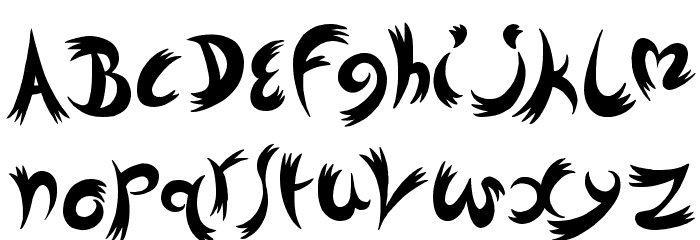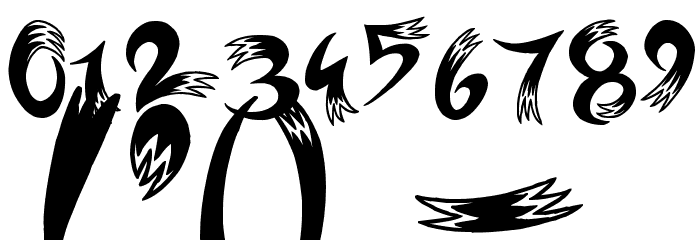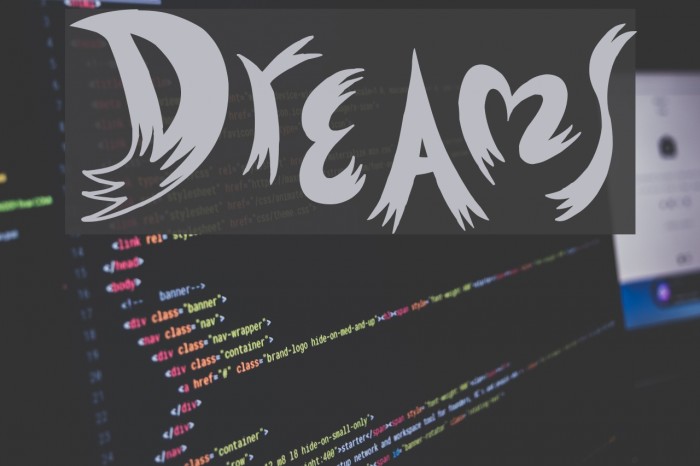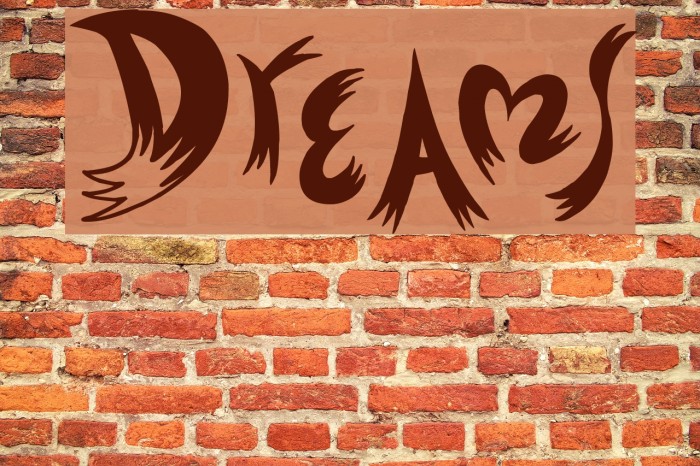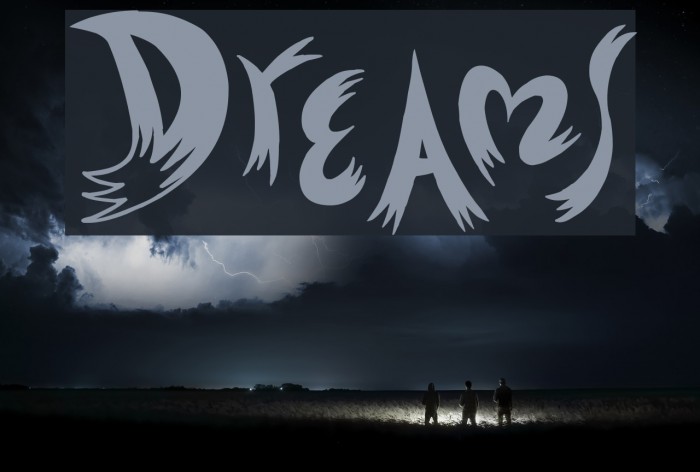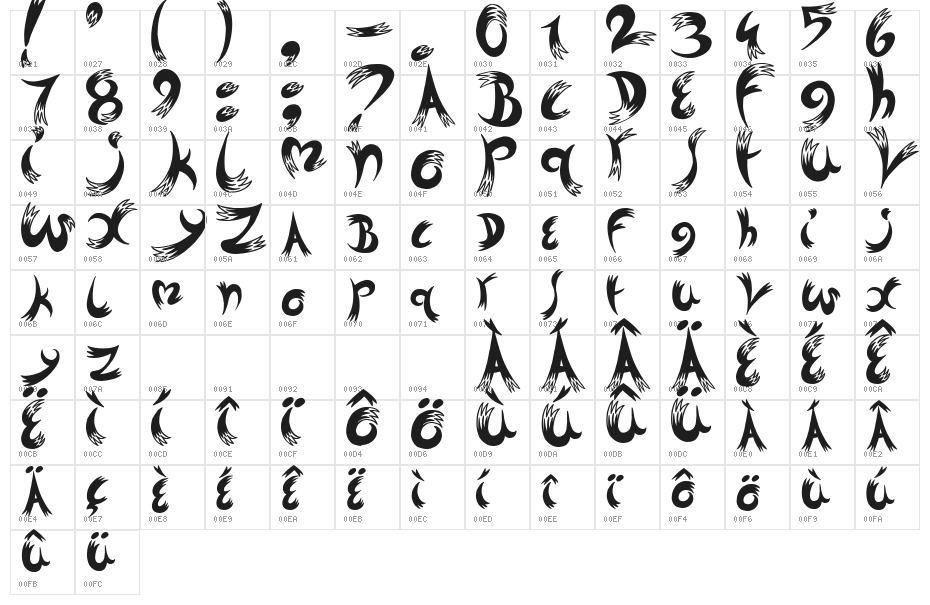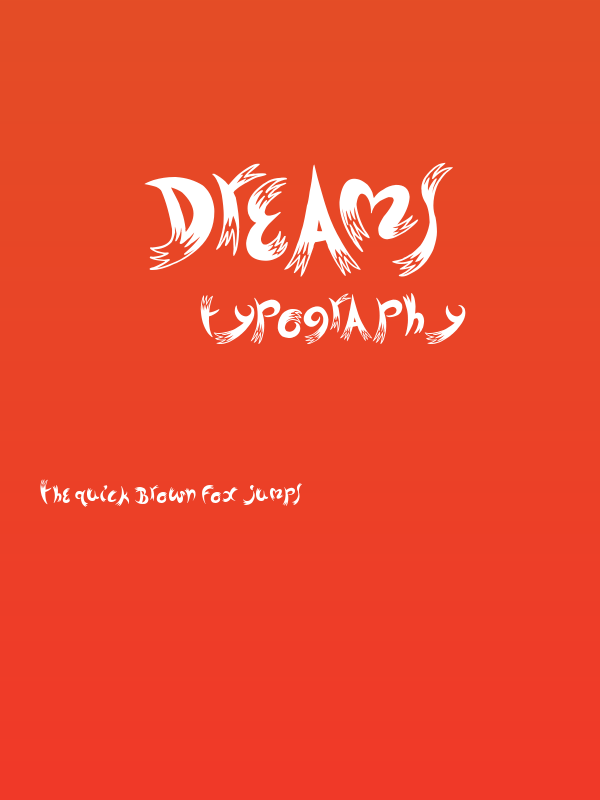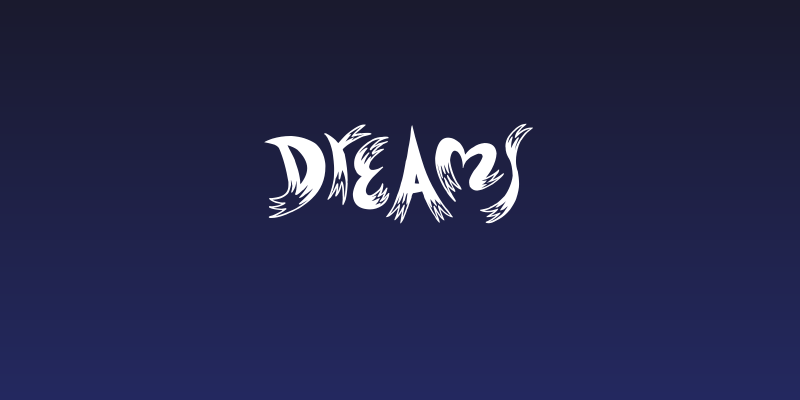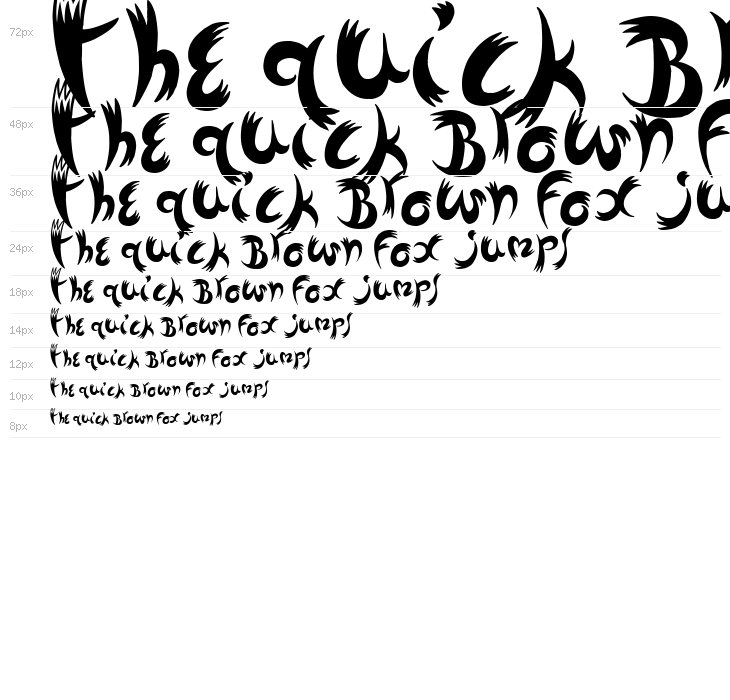
Dreams Font
This font features a dynamic and energetic style, characterized by its bold, sweeping strokes and jagged edges. The letters appear to be in motion, with a sense of fluidity and movement that gives the font a lively and animated feel. The uppercase and lowercase letters maintain a consistent style, with exaggerated curves and sharp points that create a sense of drama and excitement. The numbers and special characters follow the same design principles, ensuring a cohesive look across all elements. This font is ideal for projects that require a bold and eye-catching display, such as posters, album covers, or branding materials that aim to convey a sense of energy and creativity.
A dynamic, energetic font with bold, sweeping strokes and jagged edges.
- Proposed Projects: Posters, album covers, branding materials, creative displays.